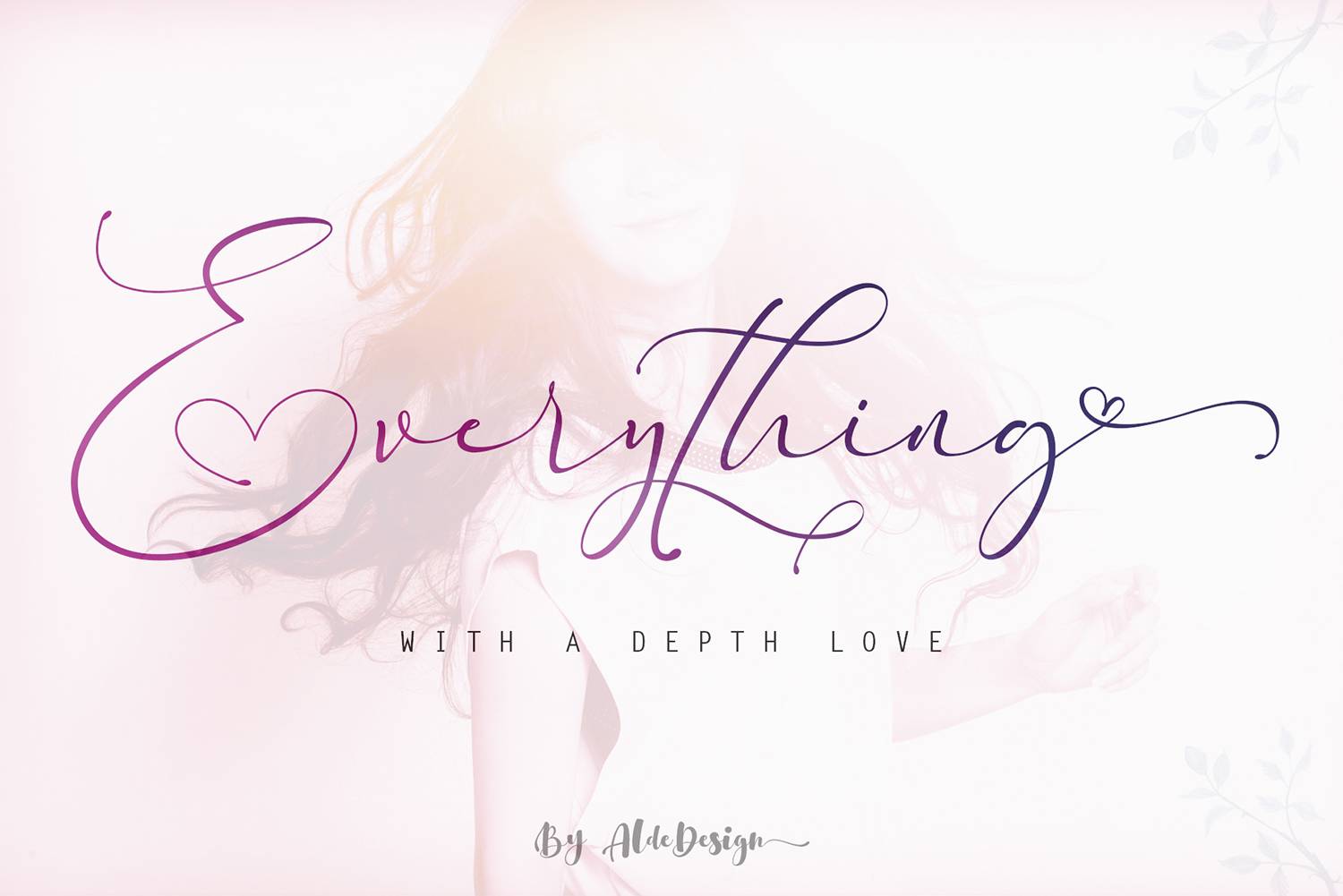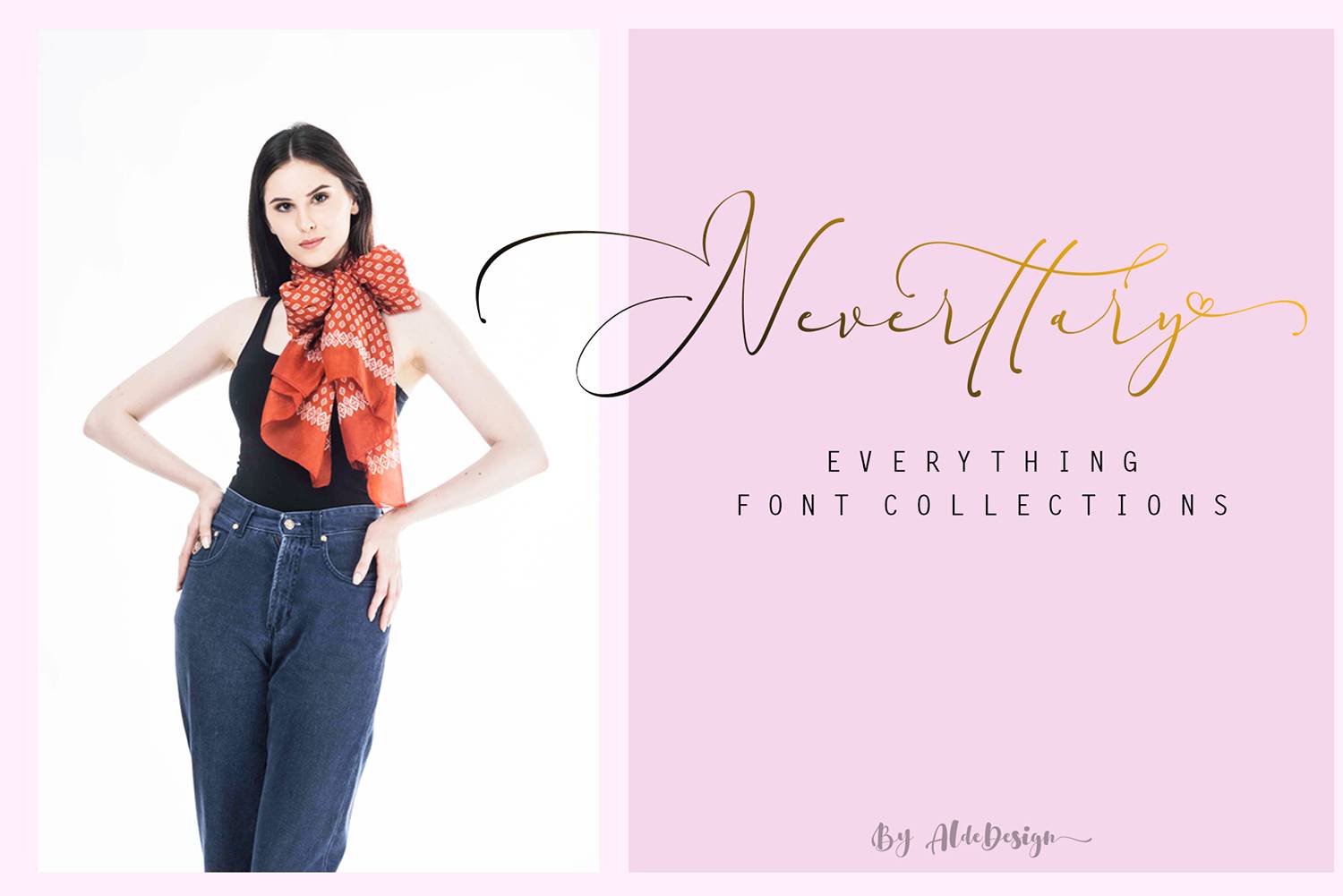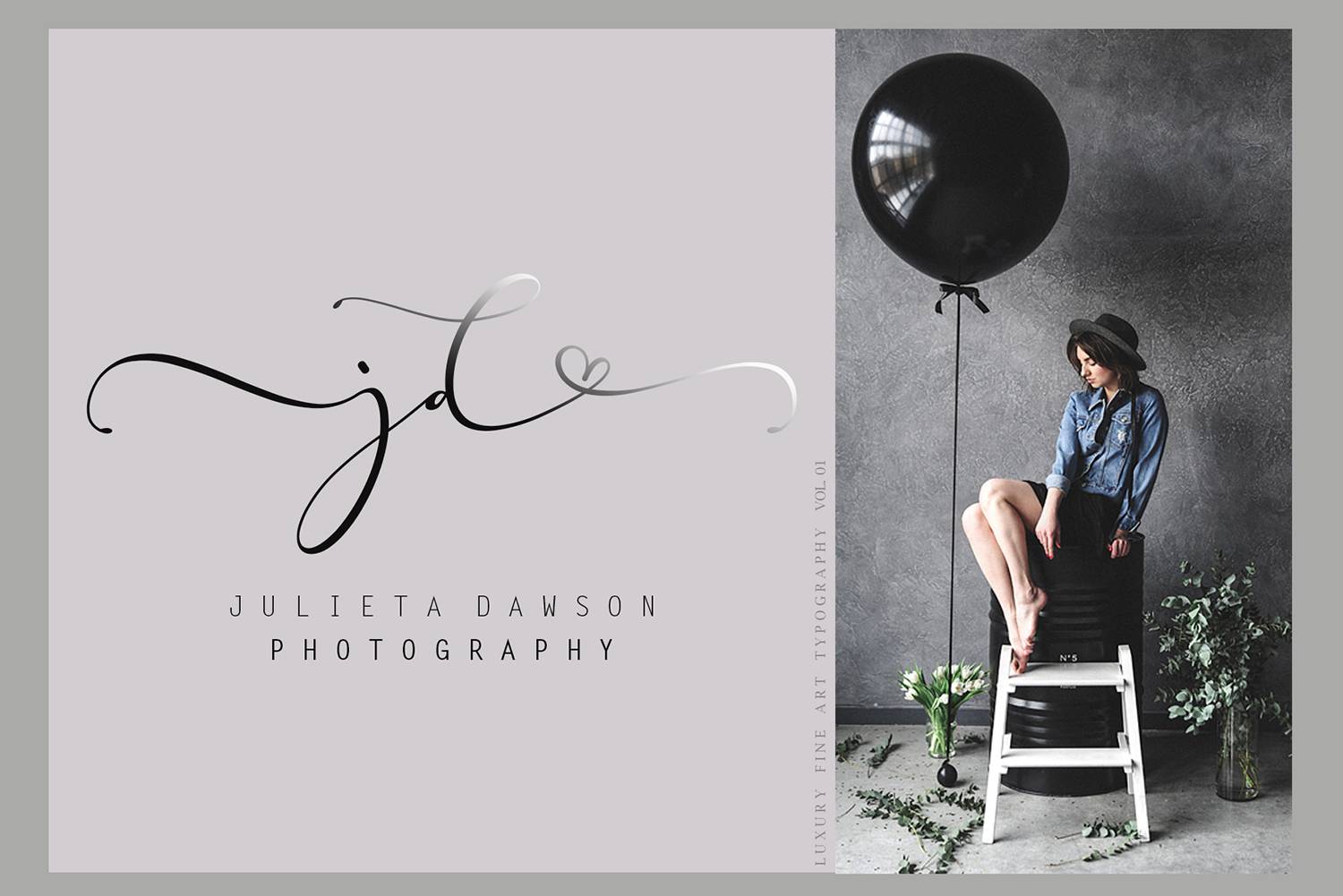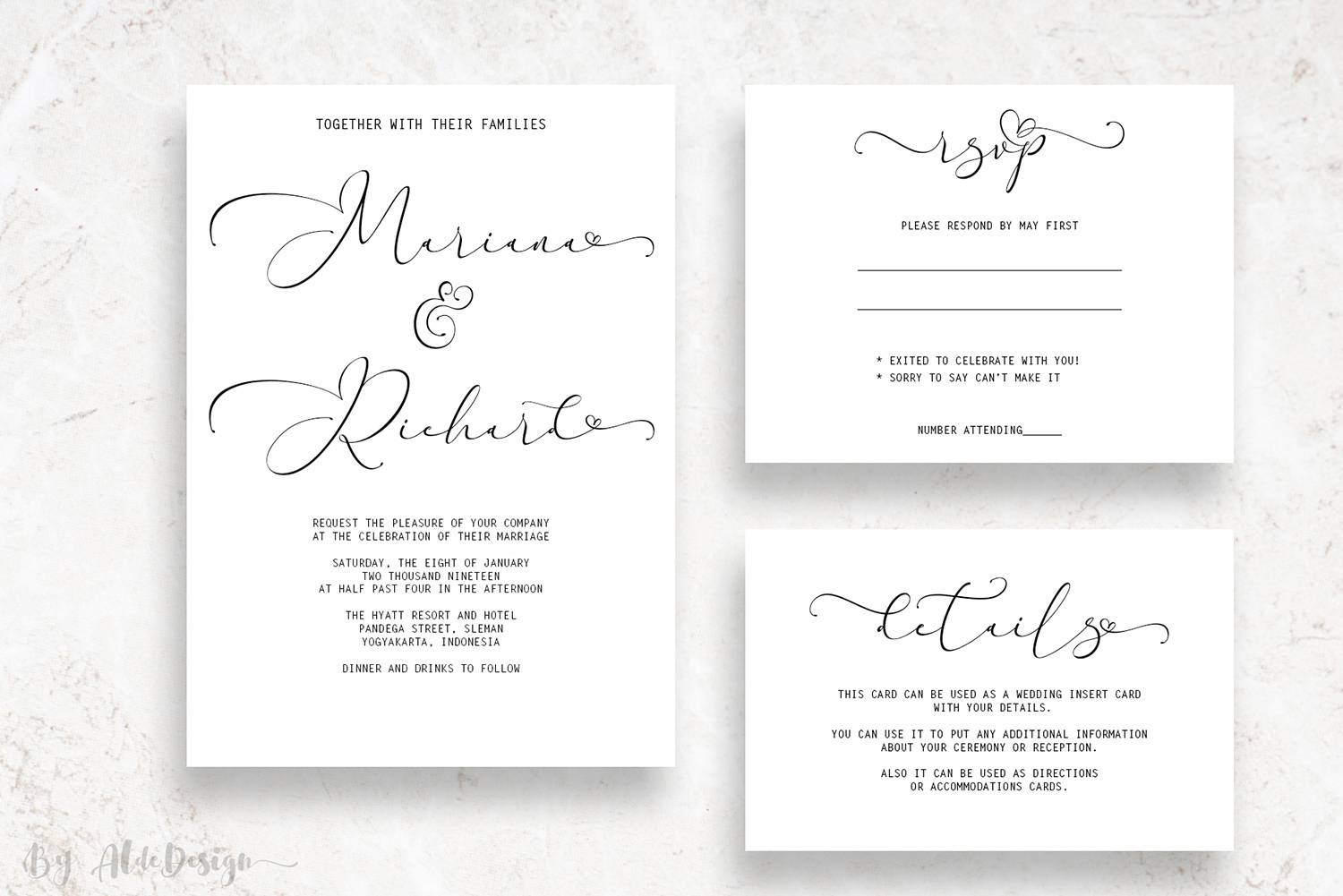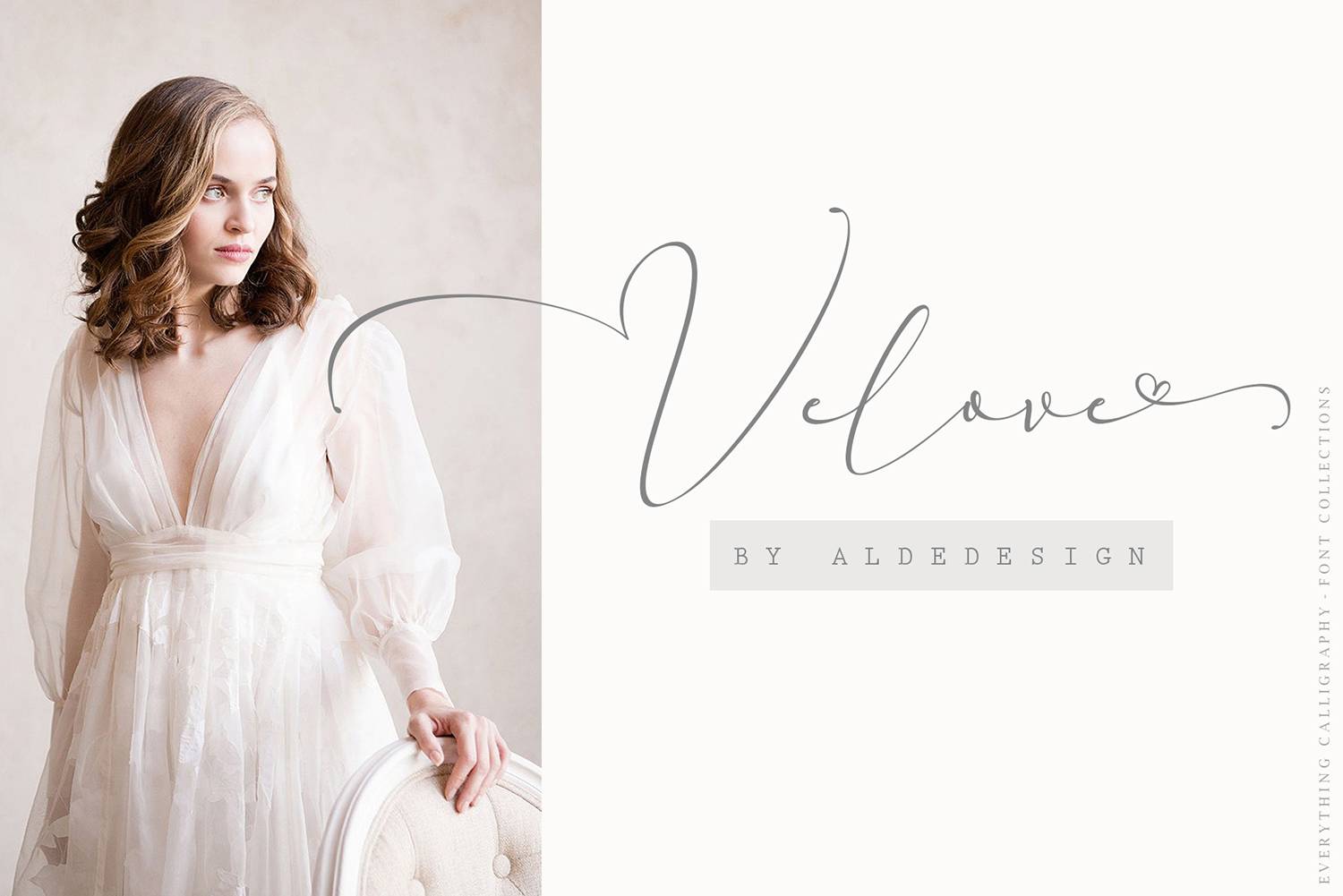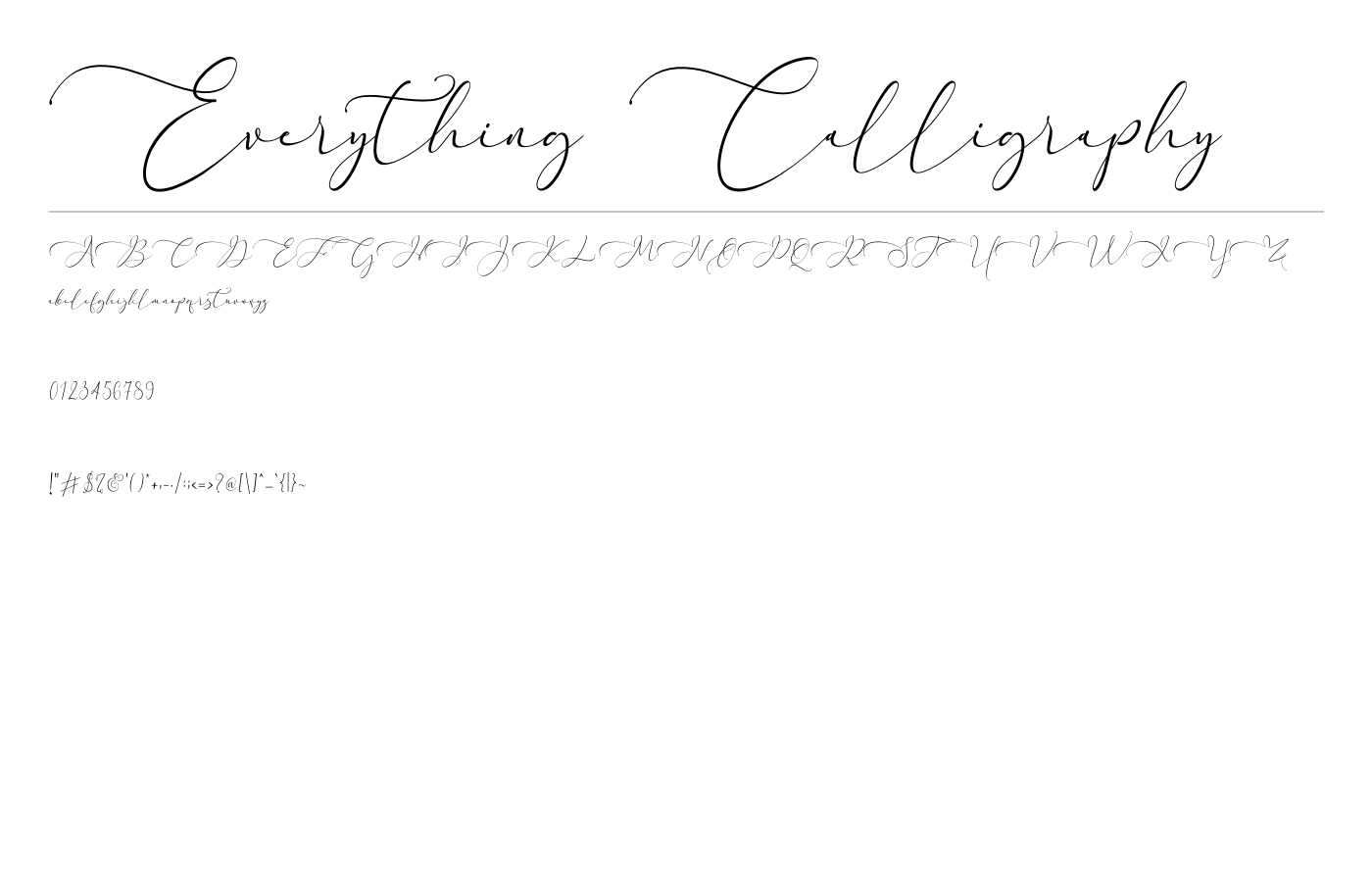
Everything Calligraphy Font is a delicate and elegant script font characterized by thin, flowing strokes and graceful swashes, evoking a hand-written calligraphy style. Its light weight and high contrast with fine lines make it perfect for sophisticated designs such as wedding invitations, luxury branding, and upscale packaging where a refined, artistic touch is desired. This font excels in creating a romantic, feminine atmosphere and works best in headlines or decorative text rather than lengthy body copy.
Everything Calligraphy Font
About Everything Calligraphy Font
| Font family | Everything Calligraphy Font |
| Designer | Aldedesign 2018 |